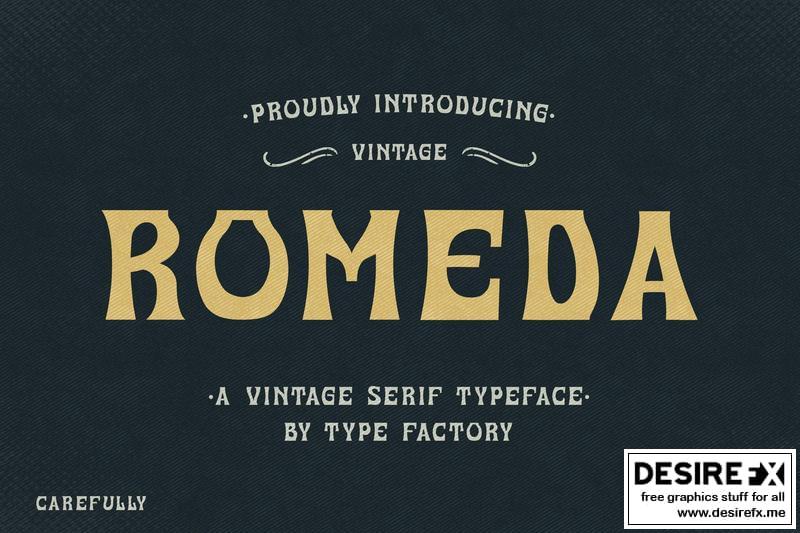
Romeda – Vintage Serif Typeface RM4UYZG
Romeda is a vintage display font inspired by the style of mid-19th century writing.
With its beautiful arrangement of letters, this font will look outstanding in both formal and non-formal designs.
Use it to add that special retro touch to any project idea you can think of!